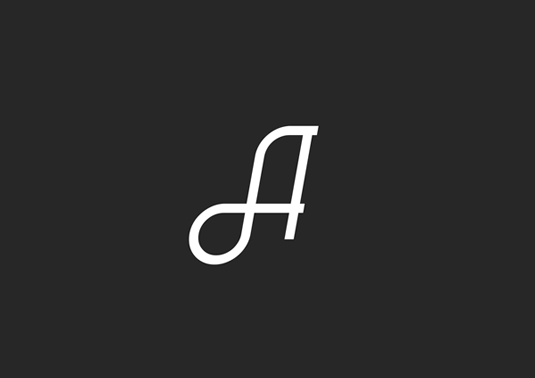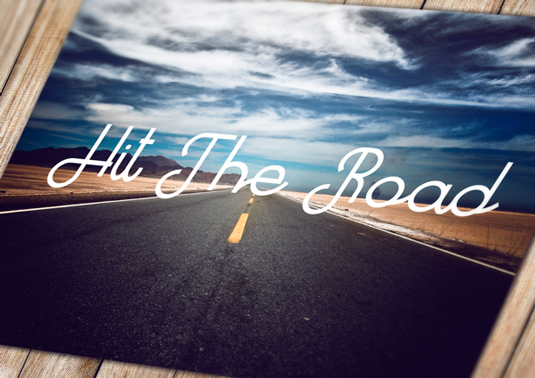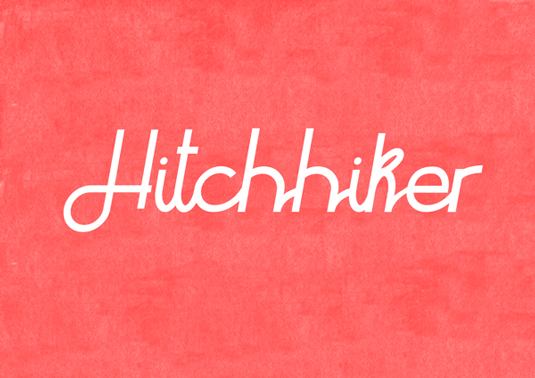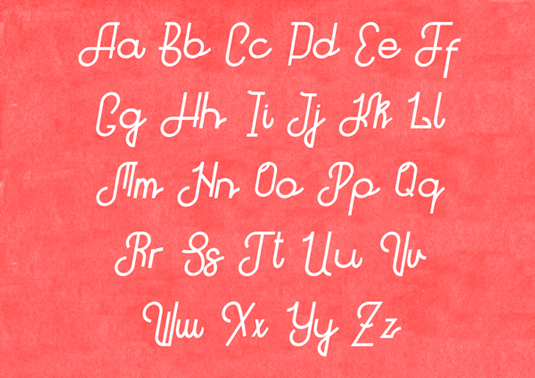
Font of the day: Hitchhiker
Hitchhiker by Slava Krivonosov
Slava Krivonosov is the graphic designer and typographer behind today's font of the day, Hitchhiker. "This design was inspired by America's mid-20th century and road travelling philosophy, especially by Jack Kerouac's novel On The Road," he comments.